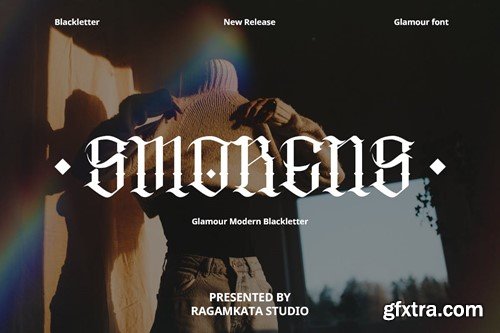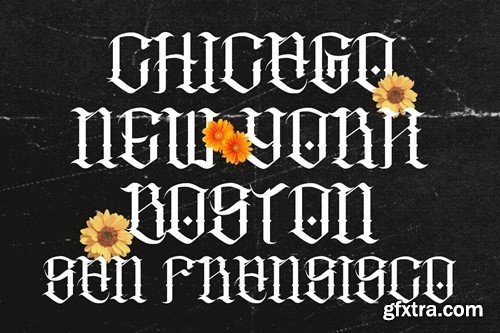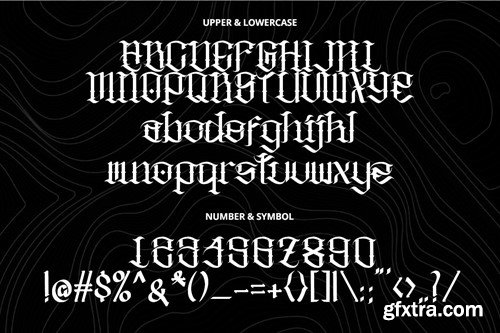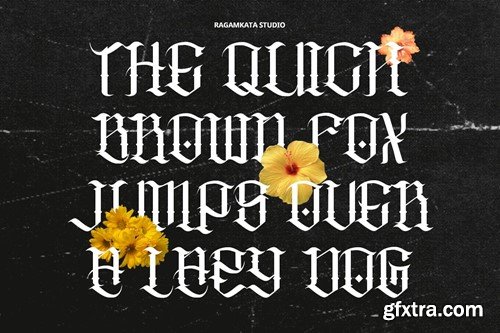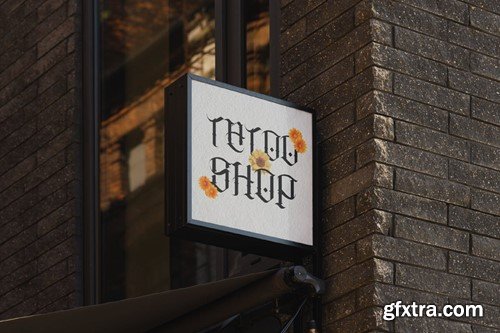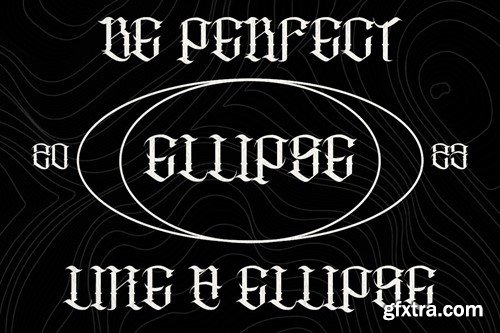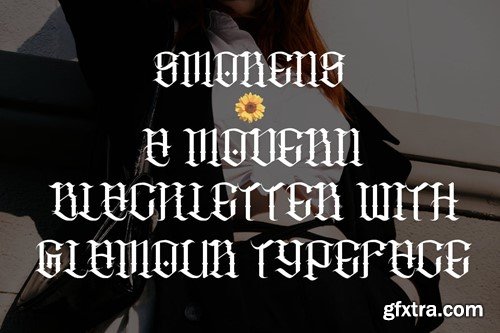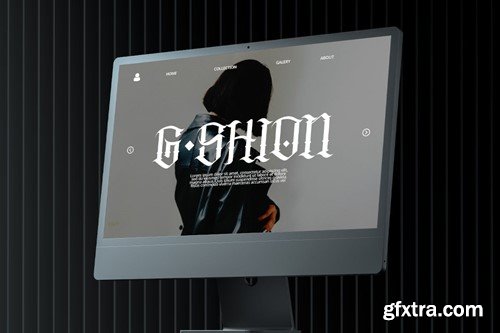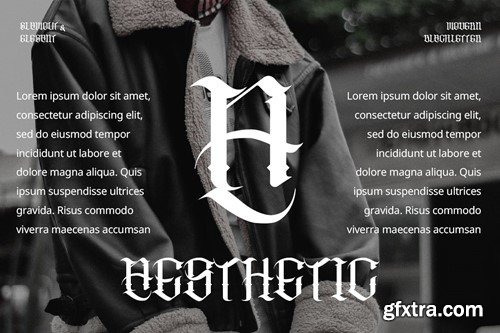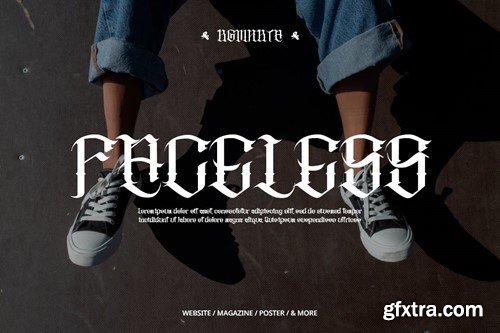
Smorens - Modern Blackletter Typeface Q5YVA9U
Smorens - Modern Blackletter Typeface
Say hello to the new modern blackletter font, SMORENS
Smorens is a unique modern blackletter font. With an elegant modern style, it adds a bold touch to your projects and will inspire you to create something unique and modern. Besides that, this font is also equipped with alternative characters, ligatures and multi-language support.
Smorens is ideal for headings, flyers, greeting cards, product packaging, book covers, printed quotes, logotype, apparel designs, and album covers.